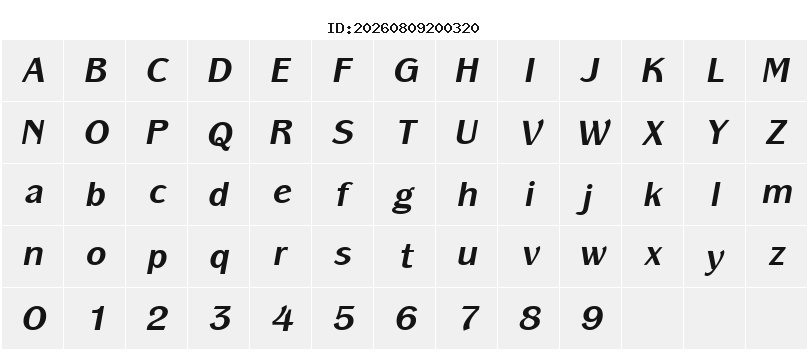
Panache Preview
• Font Name: Panache
• Font ID: Altsys Fontographer 3.5 Panache Bold Italic
• Full Font Name: Panache Bold Italic
• Version: Altsys Fontographer 3.5 11/18/92
• PostScript Name: PanacheBoldItalic
About Panache.ttf
Panache.ttf is a modern, elegant sans-serif font designed for ultimate readability and visual harmony. Perfect for branding, headlines, web design, and print materials.